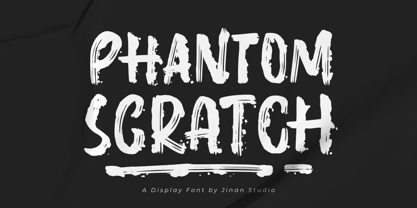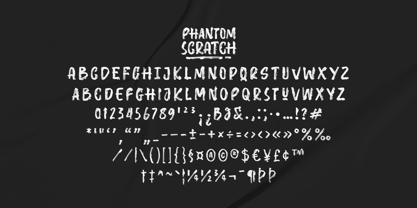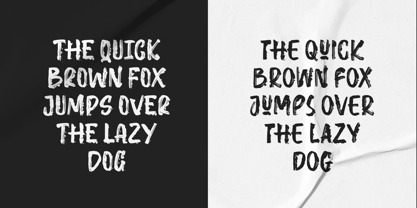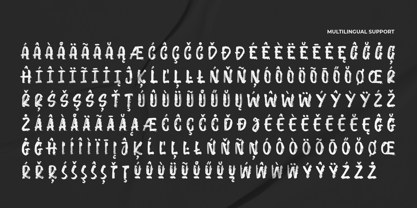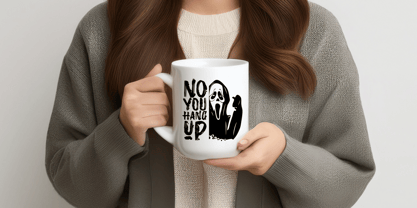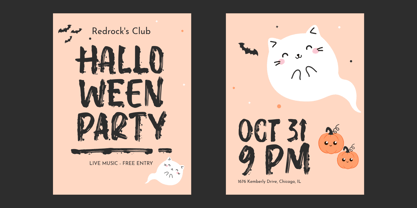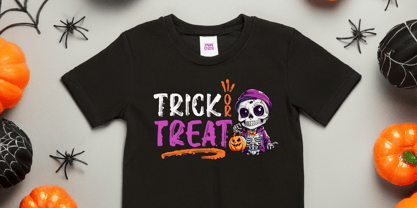
Phantom Scratch
by Jinan Studio
The Phantom Scratch Font Family was designed by Andi Syahdang, Ainun Jinan and published by Jinan Studio. Phantom Scratch contains 1 styles.
Phantom Scratch is a wild brush display font with bold strokes and gritty textures. Perfect for Halloween designs, horror posters, streetwear branding, music covers, or anything that needs a raw and edgy vibe. Its handcrafted look adds instant drama and intensity, making your project stand out in style.
Make your titles scream with Phantom Scratch – bold, scratchy, and unforgettable.
Features
• A set of uppercase and lowercase glyphs
• Number, symbol, and punctuation
• Multilingual Support
• Swashes